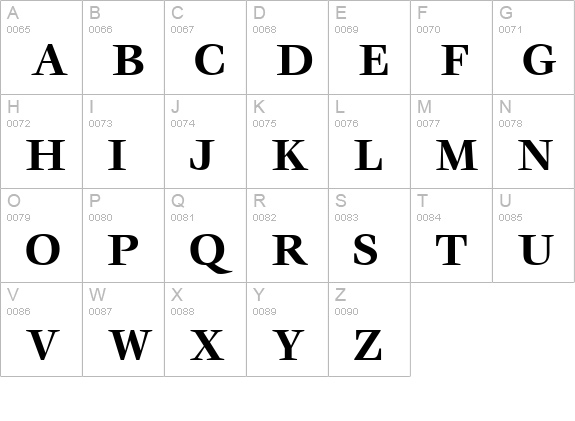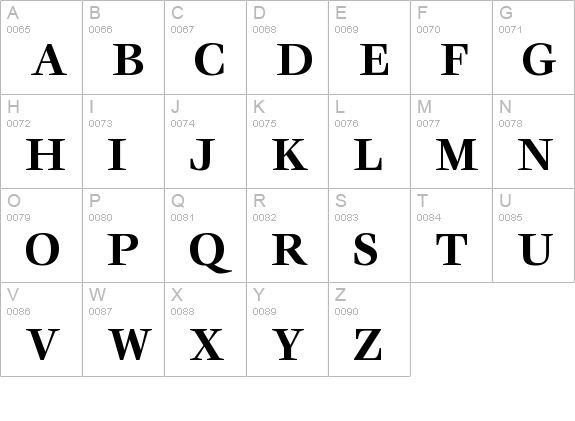
Veljovic Bold is a strong, high-contrast variant in the Veljovic typeface family \xE2\x80\x94 well suited to headlines, attention-grabbing titles, and strong calls-to-action.
Veljovic Bold is a captivating and versatile typeface that exudes a sense of confidence and elegance. Designed by renowned Serbian typographer Jovica Veljovic, this font beautifully merges classic and contemporary elements, making it perfect for a wide range of design projects. With its bold and commanding presence, Veljovic Bold commands attention and instantly adds a touch of sophistication to any design. Its carefully crafted letterforms feature strong, clean lines and a perfect balance between sharp corners and soft curves. This gives the font a modern yet timeless appeal, ensuring that it remains relevant in the ever-evolving world of design. The versatility of Veljovic Bold shines through in its ability to effortlessly adapt to various design contexts. Whether it is used for headlines, posters, logos, or branding materials, this font effortlessly conveys a sense of authority and professionalism. Its bold weight and sharp details make it highly legible even at smaller sizes, ensuring that your message is clear and impactful. One of the most remarkable aspects of Veljovic Bold is that it is freely available to download at FontsMarket.com. This means that you can access this exceptional font without any cost, allowing you to unleash your creativity without any financial constraints. The availability of Veljovic Bold for free makes it an invaluable resource for designers, students, and anyone looking to elevate their projects with a touch of sophistication. Whether you are a seasoned designer or just starting your creative journey, Veljovic Bold is a must-have in your font collection. Its clean and commanding aesthetic, combined with its versatility and availability, make it a font that stands out from the crowd. So go ahead and download Veljovic Bold from FontsMarket.com and experience the power and beauty of this extraordinary typeface.